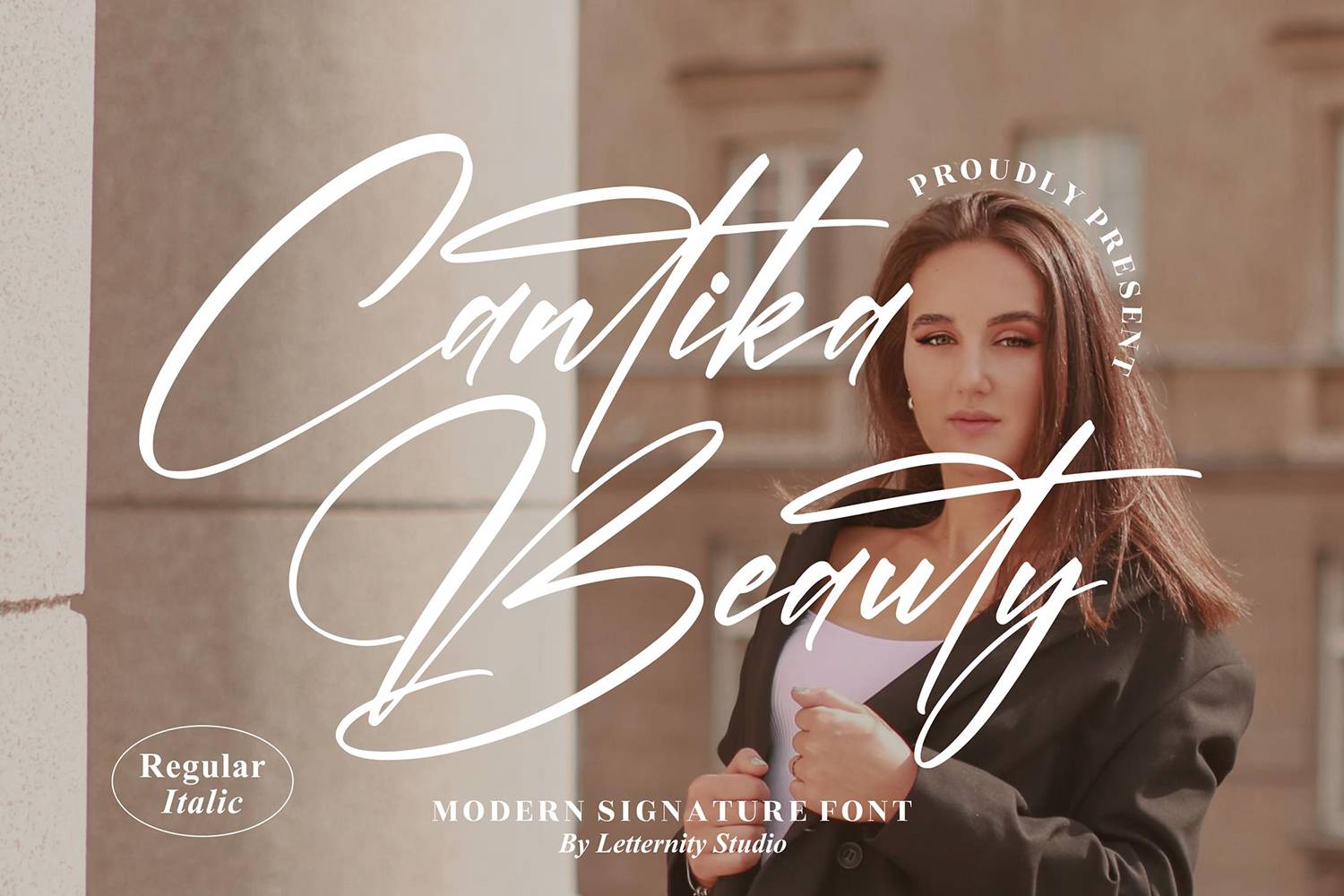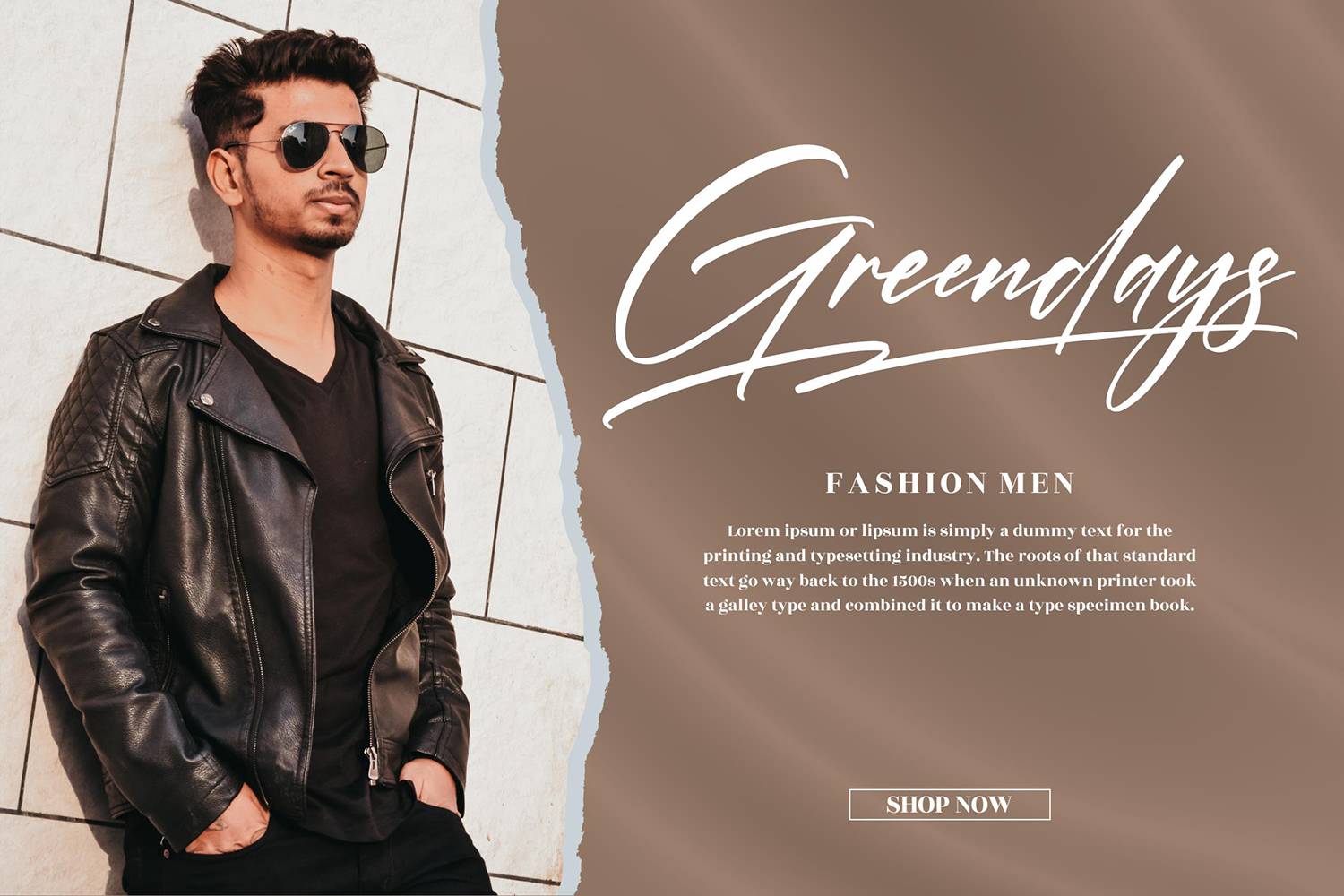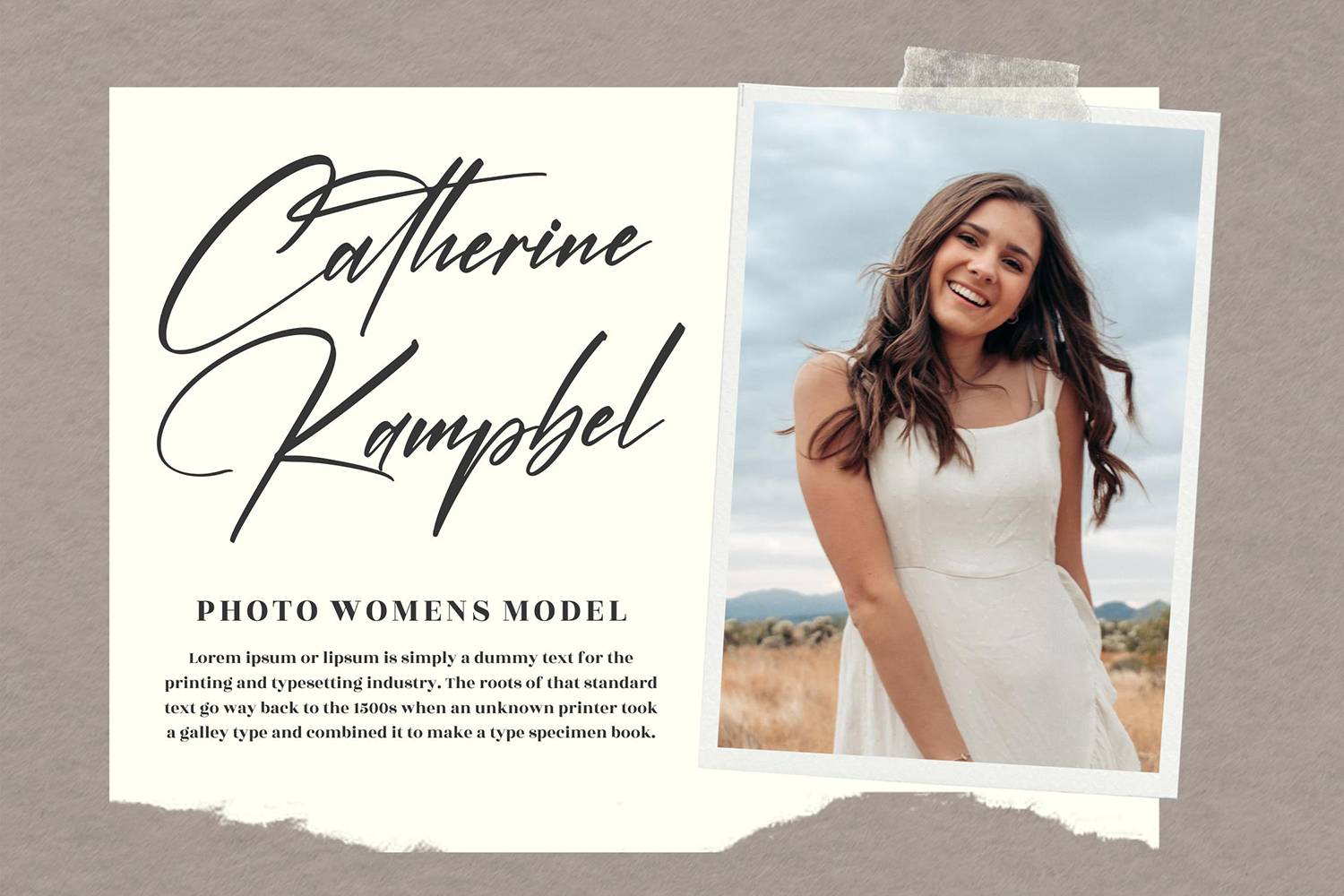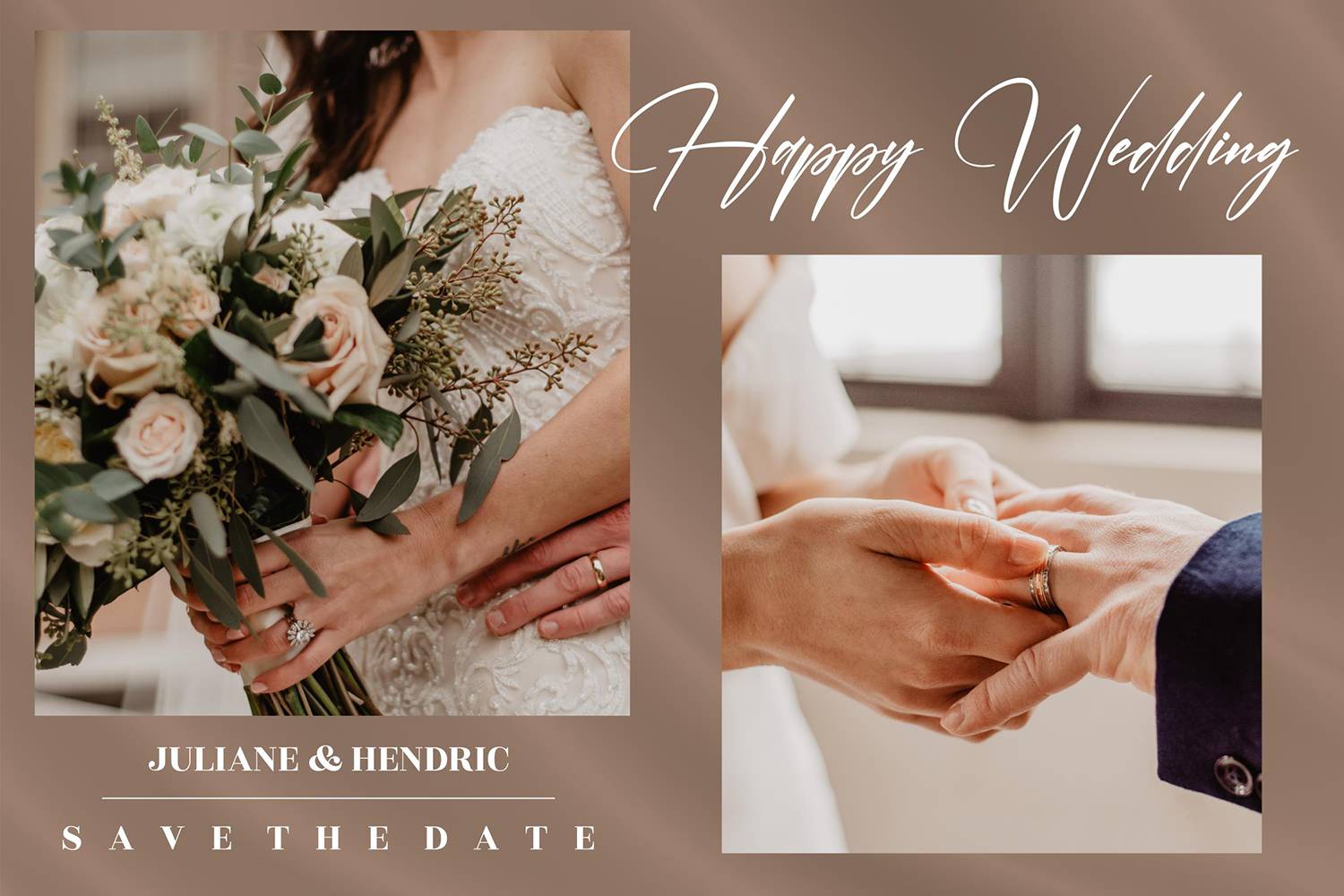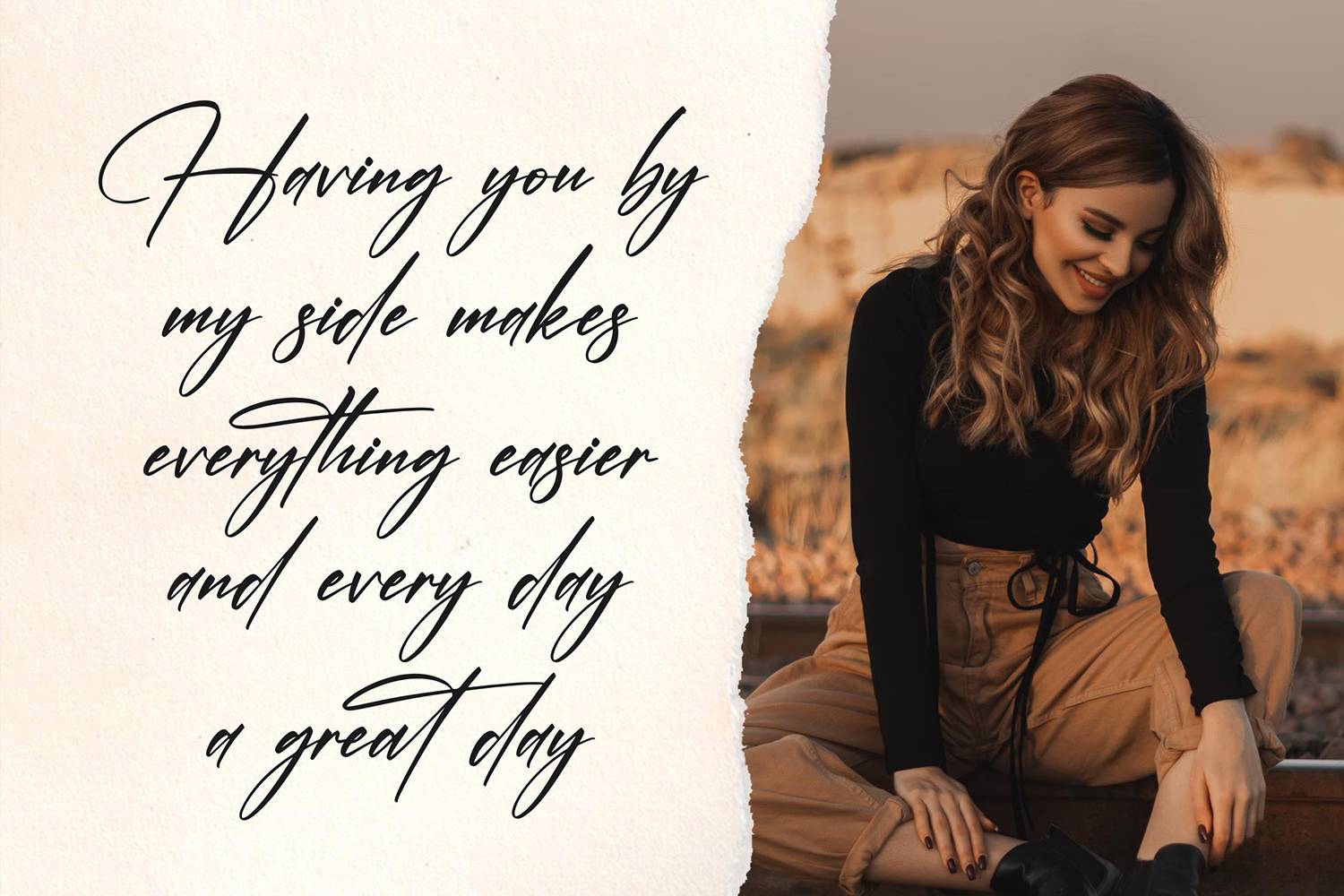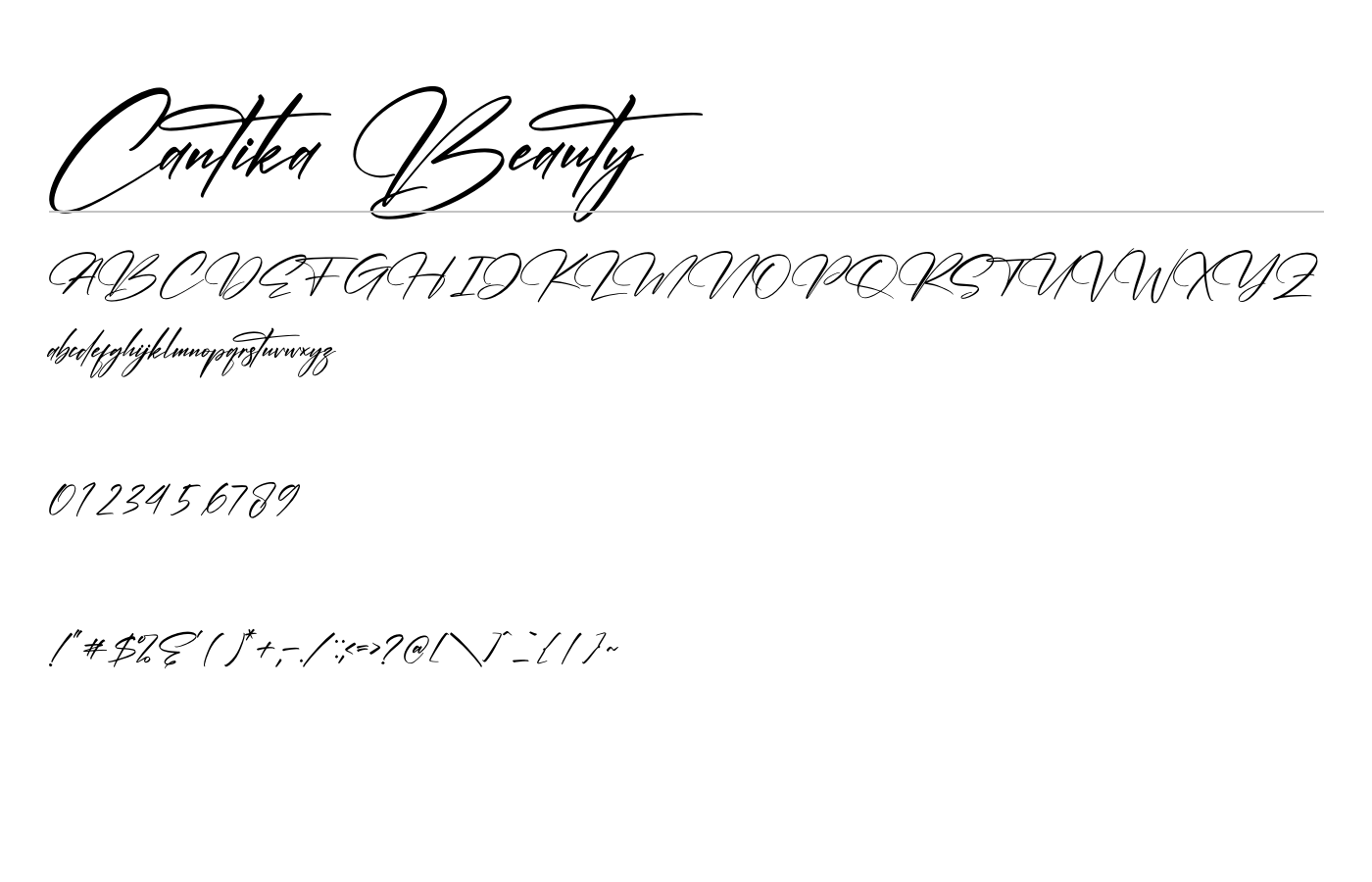
Cantika Beauty is an elegant, modern script font with delicate, flowing letterforms that evoke a sense of sophistication and femininity. Its slim, high-contrast strokes and graceful curves make it perfect for luxury branding, beauty products, and stylish editorial headlines where a refined, handwritten touch is desired. This font works beautifully in designs that need a soft, personal, yet chic appeal.
Cantika Beauty Font
About Cantika Beauty Font
| Font family | Cantika Beauty Font |